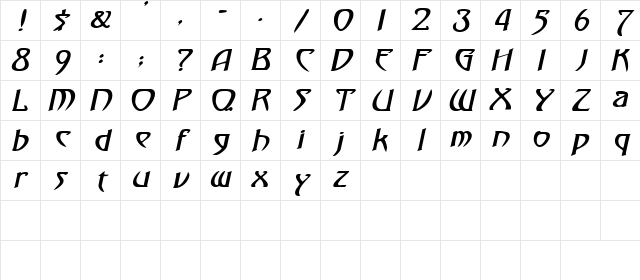
Templar HeavyItalic
Style: HeavyItalic
Templar Family
Templar HeavyItalic
Design Context for Templar
Templar is a composed and adaptable typeface that performs quietly and consistently across a wide range of design contexts. The slanted form adds forward momentum and visual energy.
Pro Tip: Use Templar for emphasis, pull quotes, and subheadings where its slanted energy can add rhythm to the layout.